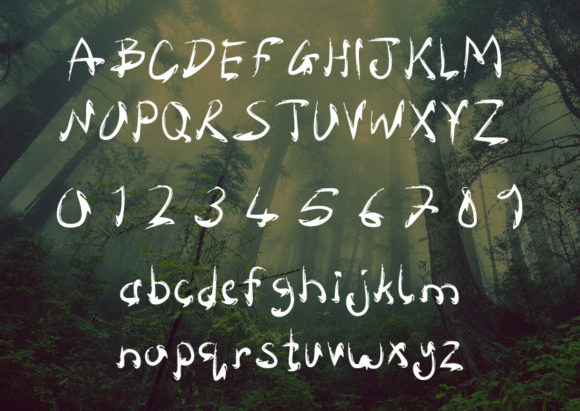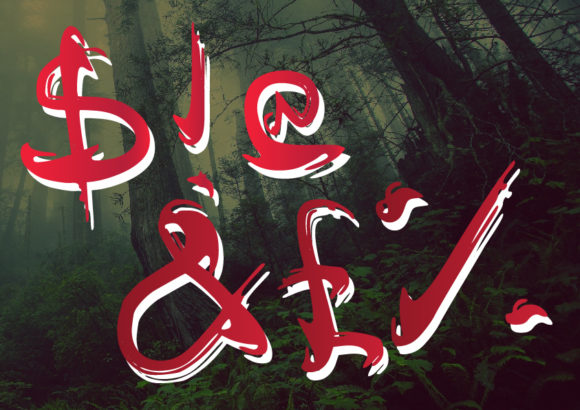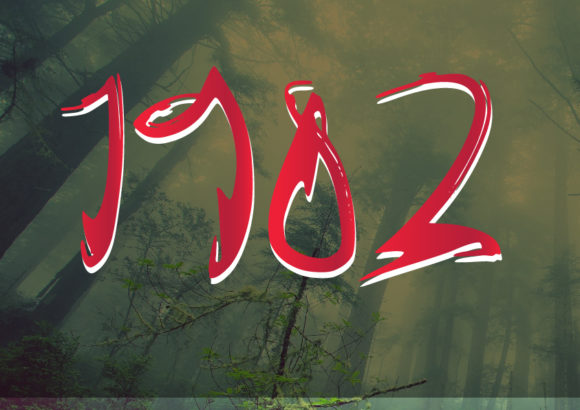
The Quest for the Perfect Font
You know that moment when you’re working on a design project and you just can’t seem to find the right font to bring your vision to life? It’s like searching for a needle in a haystack, but instead of a needle, it’s a font that captures the essence of your creative idea.
That’s where the Dragon Sword Font comes in – a fantasy-inspired script font with bold sword-like swashes that will transport your designs to a world of sorcery and sword-fighting adventure. With its unique and eye-catching design, the Dragon Sword Font is the perfect addition to any project that needs a touch of magic.
As a designer, you know that the right font can make all the difference between a good design and a great one. The Dragon Sword Font is a valuable tool in your arsenal, allowing you to add a touch of whimsy and fantasy to your work. Whether you’re designing a book cover, a video game, or a fantasy-themed website, the Dragon Sword Font is sure to impress.
Dragon Sword Font Key Features
- Font Family: Dragon Sword is a fantasy font designed to resemble ancient Asian calligraphy.
- Unique Characteristics: Dragon Sword features intricate, hand-drawn designs, including curved strokes and ornate flourishes, giving it a unique and exotic feel.
Designer Review: Dragon Sword Font
Overall, I’m impressed with the unique aesthetic of the Dragon Sword Font. ✨ Its bold, fantasy-inspired design makes it perfect for projects that need a touch of medieval magic. The font’s varied line thickness and ornate details add a level of sophistication that’s hard to find in more generic fonts.
- ✨ Unique design that stands out from the crowd
- ✨ Perfect for fantasy, sci-fi, and medieval-themed projects
- ✨ Great for titles and headings, adding a sense of drama and importance
However, there are some limitations to consider. ⚠️ The font’s complexity can make it difficult to read in smaller sizes, and some of the letters may appear cluttered or hard to distinguish from one another. Additionally, the font’s use of decorative elements can make it feel less versatile than some other fonts.
Limitsations:
- ⚠️ May be difficult to read in smaller sizes
- ⚠️ Can feel cluttered or overwhelming in certain contexts
- ⚠️ Limited versatility due to decorative elements
Overall, I’d recommend the Dragon Sword Font for projects that require a bold, fantasy-inspired look. While it may not be the best choice for every project, it’s definitely a great option for those looking to add a touch of magic to their design.
Use the Dragon Sword Font for:
* Fantasy-themed projects, such as book covers or role-playing game materials.
* Medieval or historical designs, such as banners or certificates.
* Adding a touch of drama or elegance to your designs.